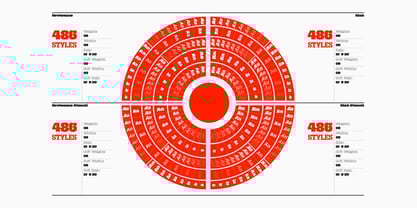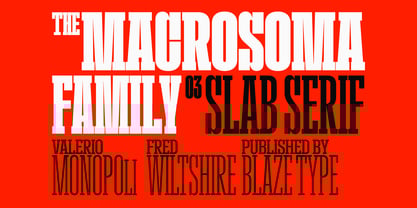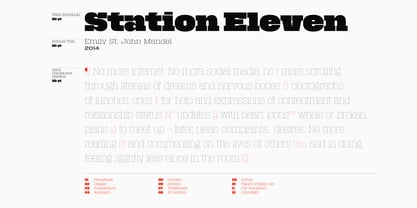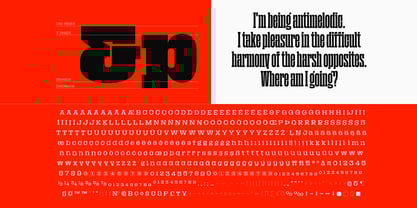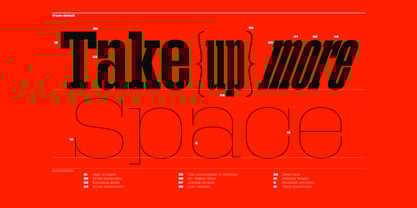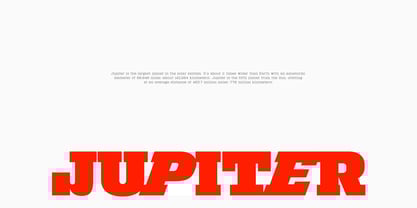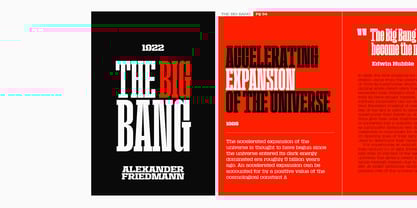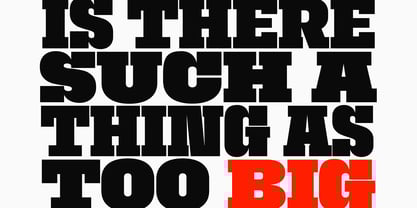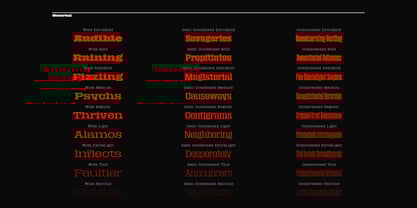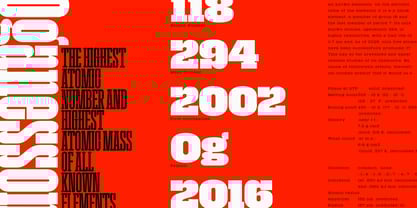
Macrosoma Slab Variable
La familia tipográfica Macrosoma Slab Variable fue diseñada por Fred Wiltshire, Valerio Monopoli y publicada por Blaze Type. Macrosoma Slab Variable contiene 1 estilos.
Macrosoma might very well be the most expansive type family ever created. What began as a single-style condensed sans serif font has grown into an extraordinary collection of nearly two thousand single cuts. This impressive range spans almost every corner of the traditional typographic spectrum: from compressed to extended, hairline to black, sans and slab serif—each available in stencil form and with soft edges.
Despite its remarkable versatility, Macrosoma remains a truly distinctive and instantly recognisable font. It boasts several unique features, such as exceptionally short ascenders and thin punctuation, which set it apart from its sans serif contemporaries. These signature traits ensure that no matter which member of this extensive family you choose, your design will retain its uniqueness and stand out effortlessly. The third in chronological order among the many families within this massive typeface, Macrosoma Slab is the serif brother of the core grotesque family.